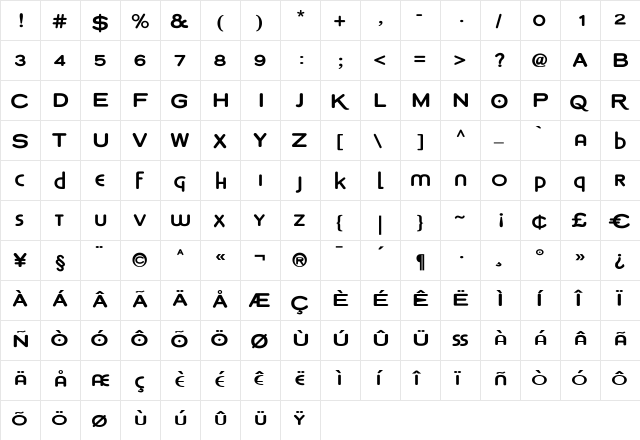
Copperplate Modern Bold Regular
Design Context for Copperplate Modern Bold Typeface
Copperplate Modern Bold takes a measured approach to typography — its balanced proportions and neutral character make it a reliable workhorse for both digital and print work. Its bold stroke weight gives it real presence on the page.